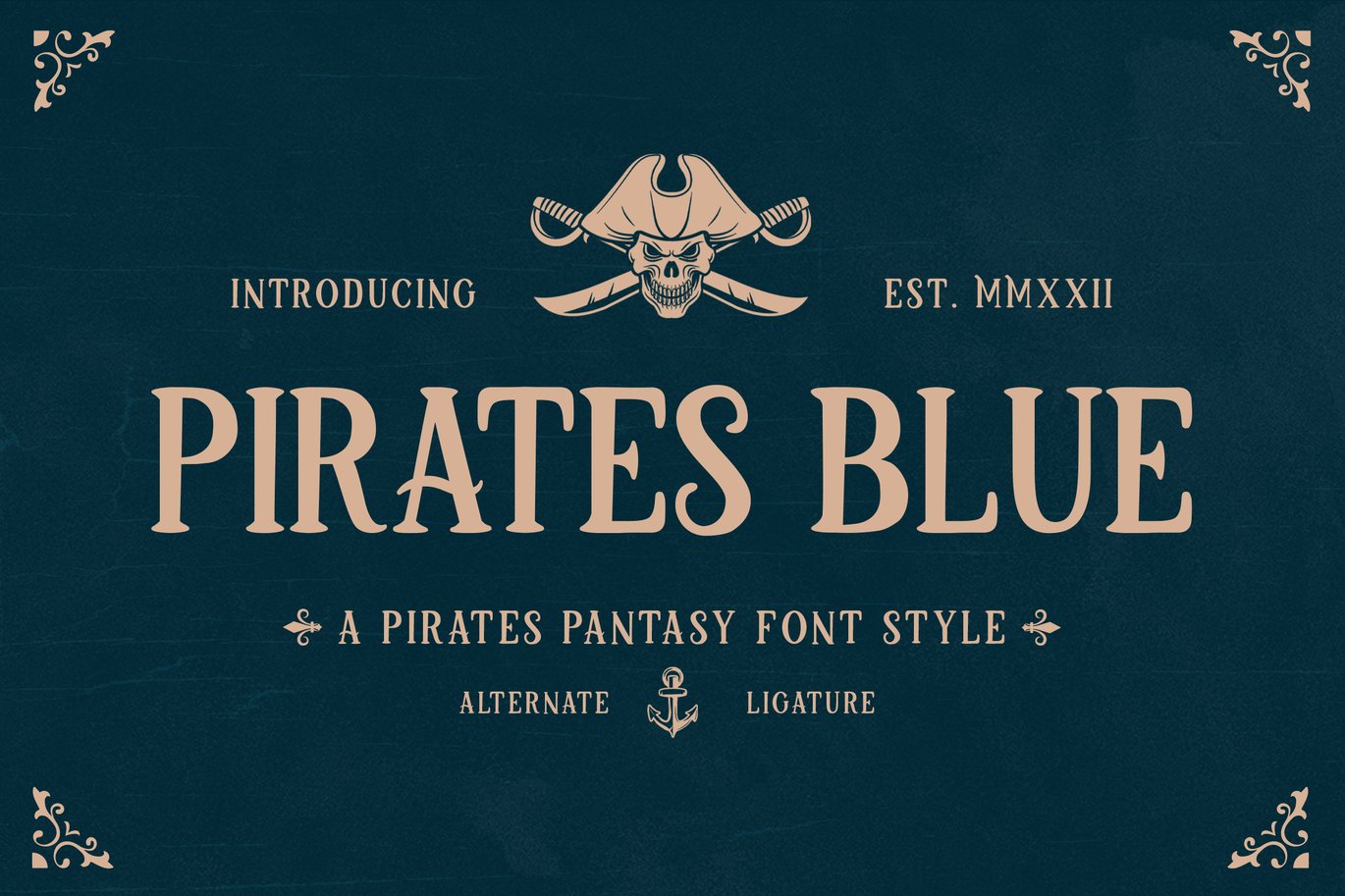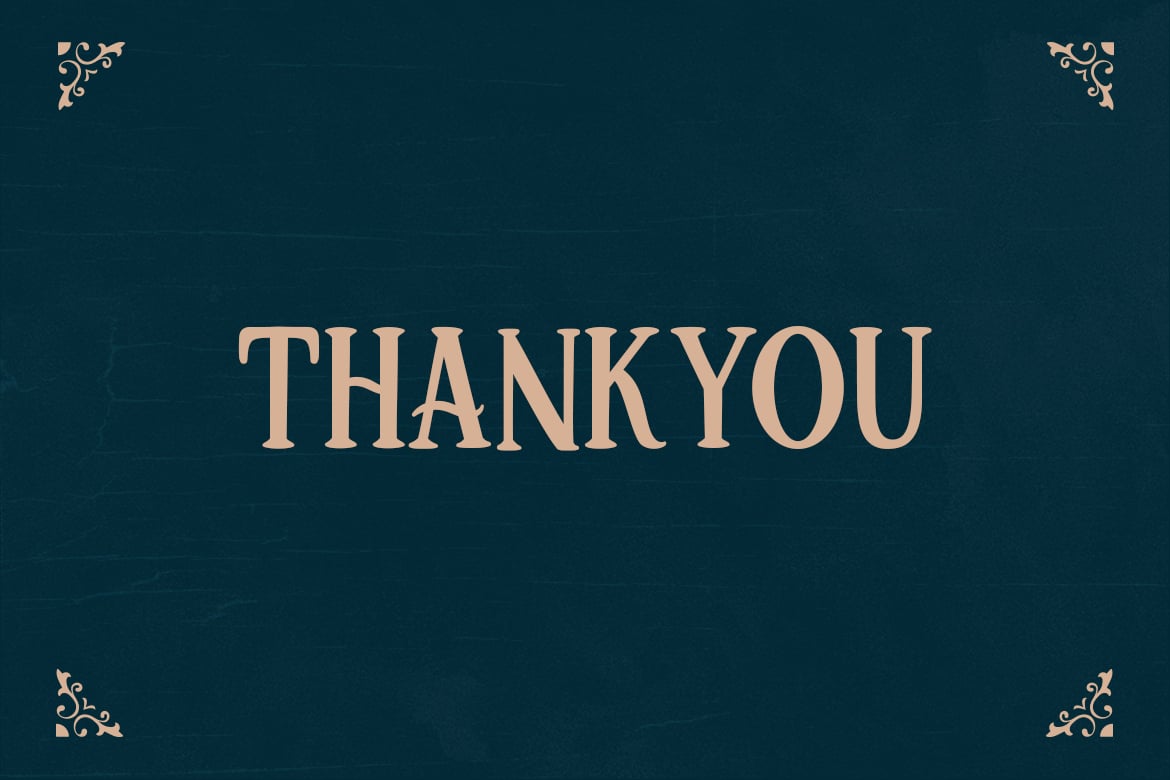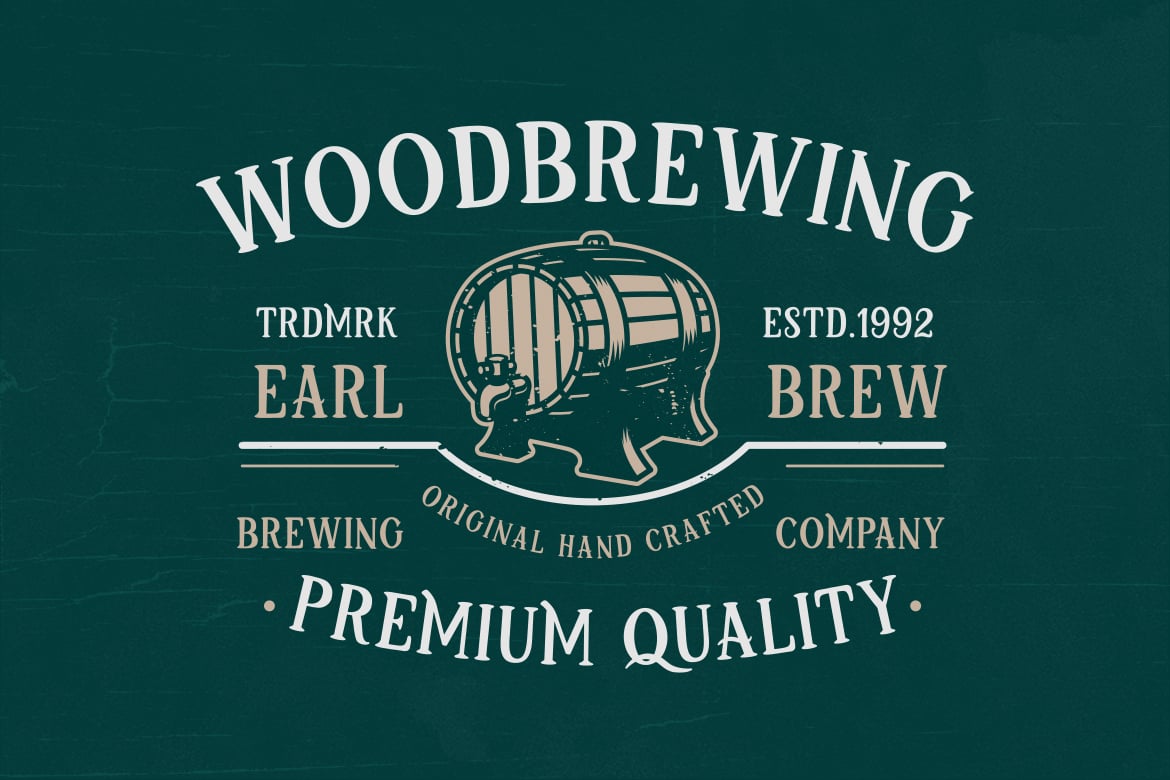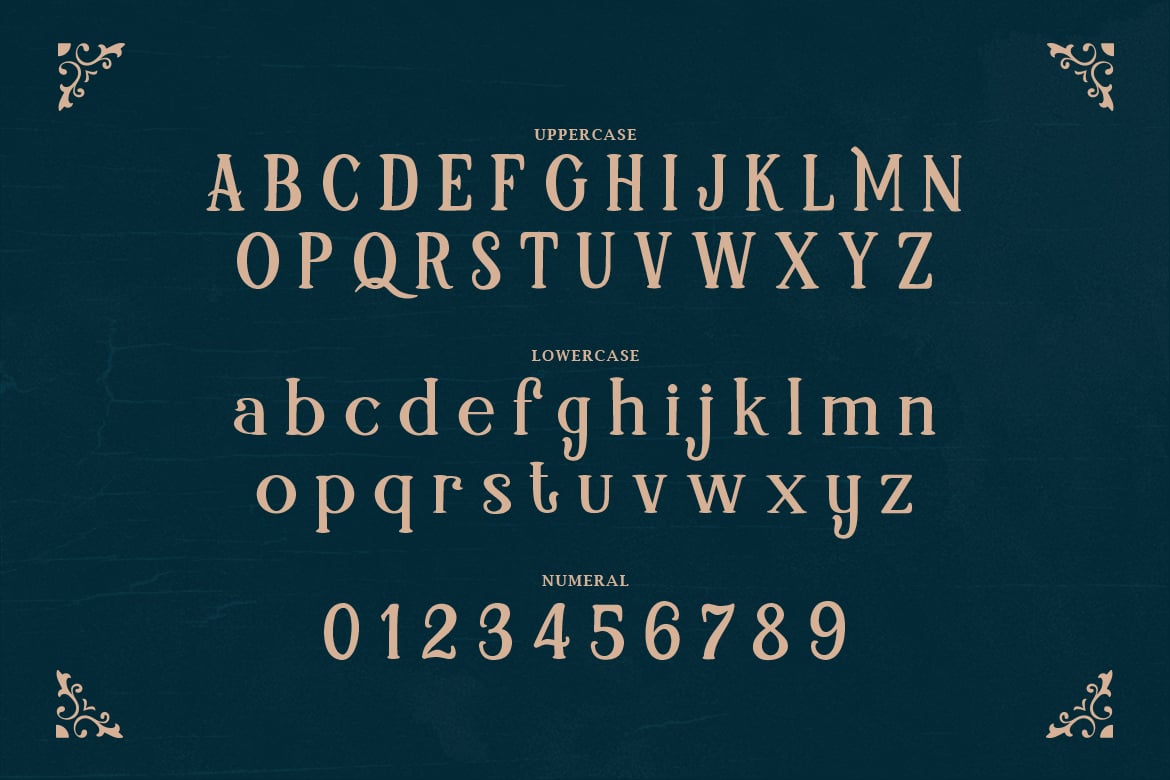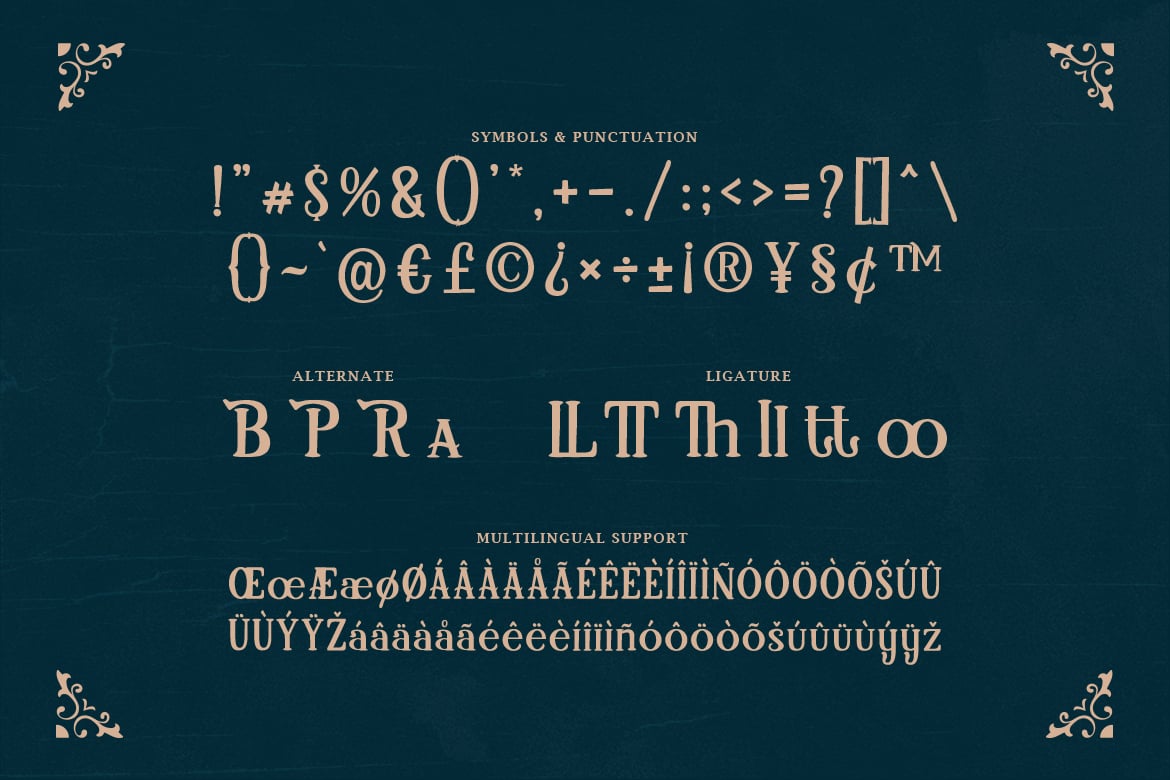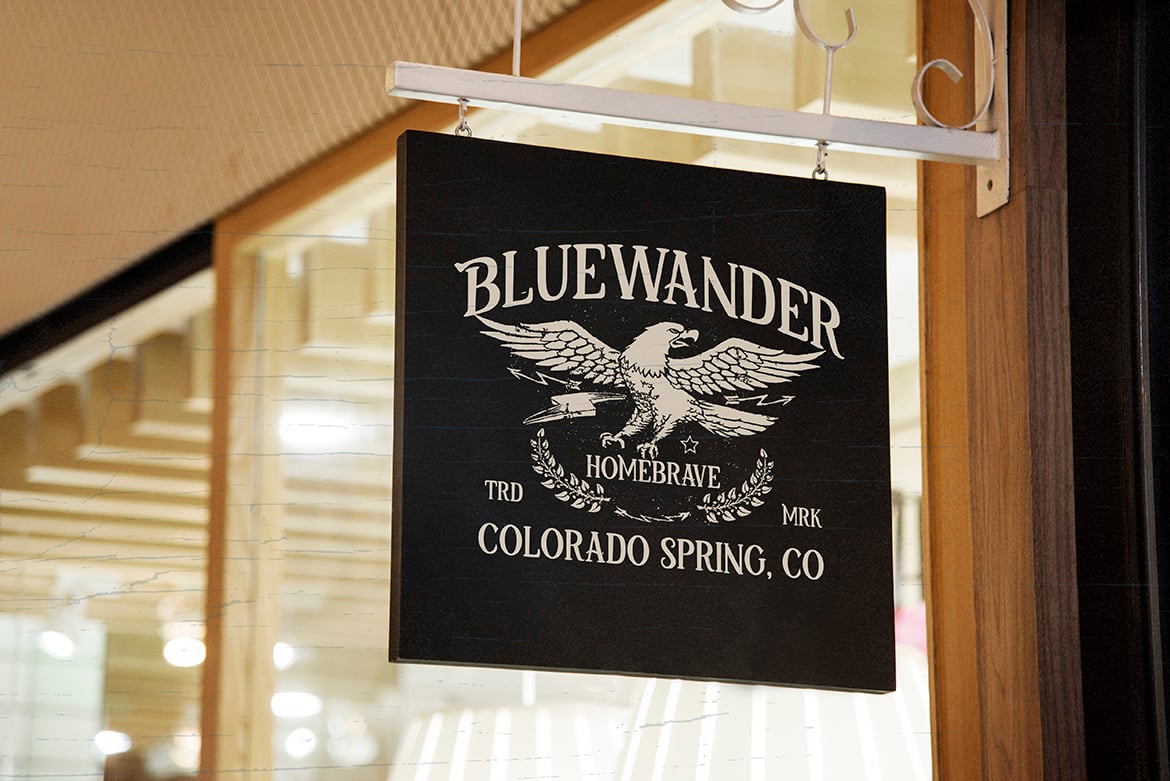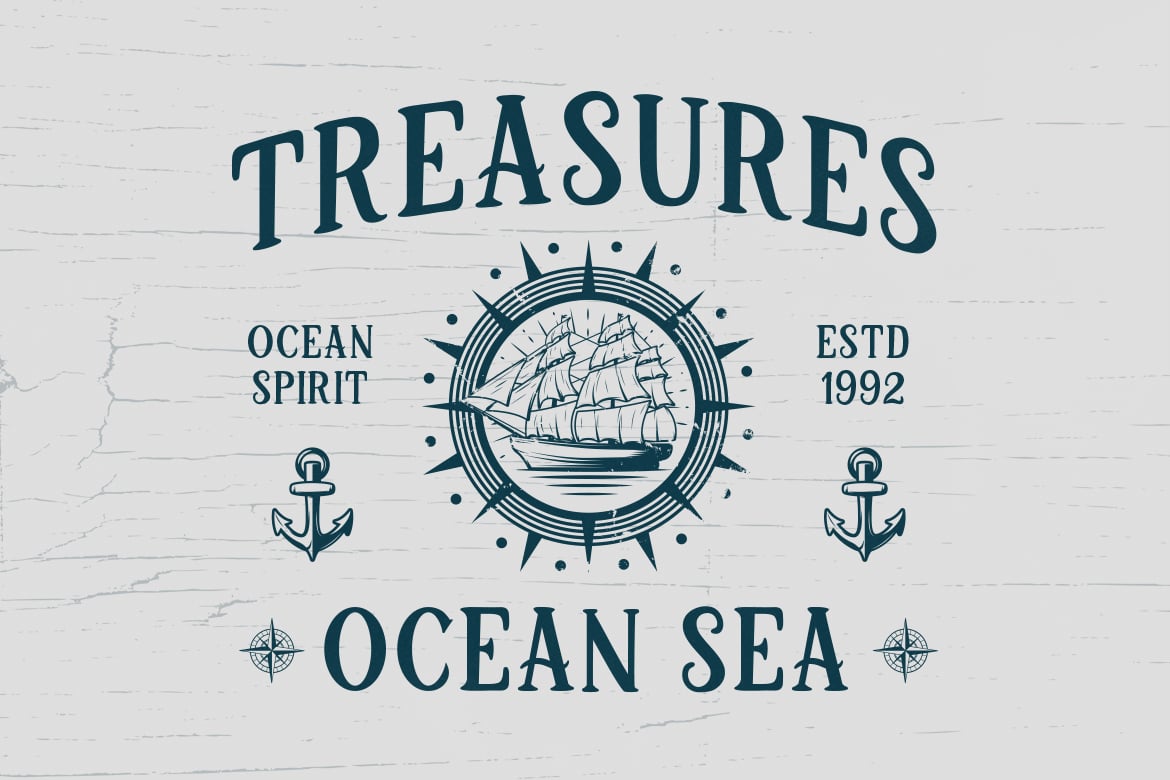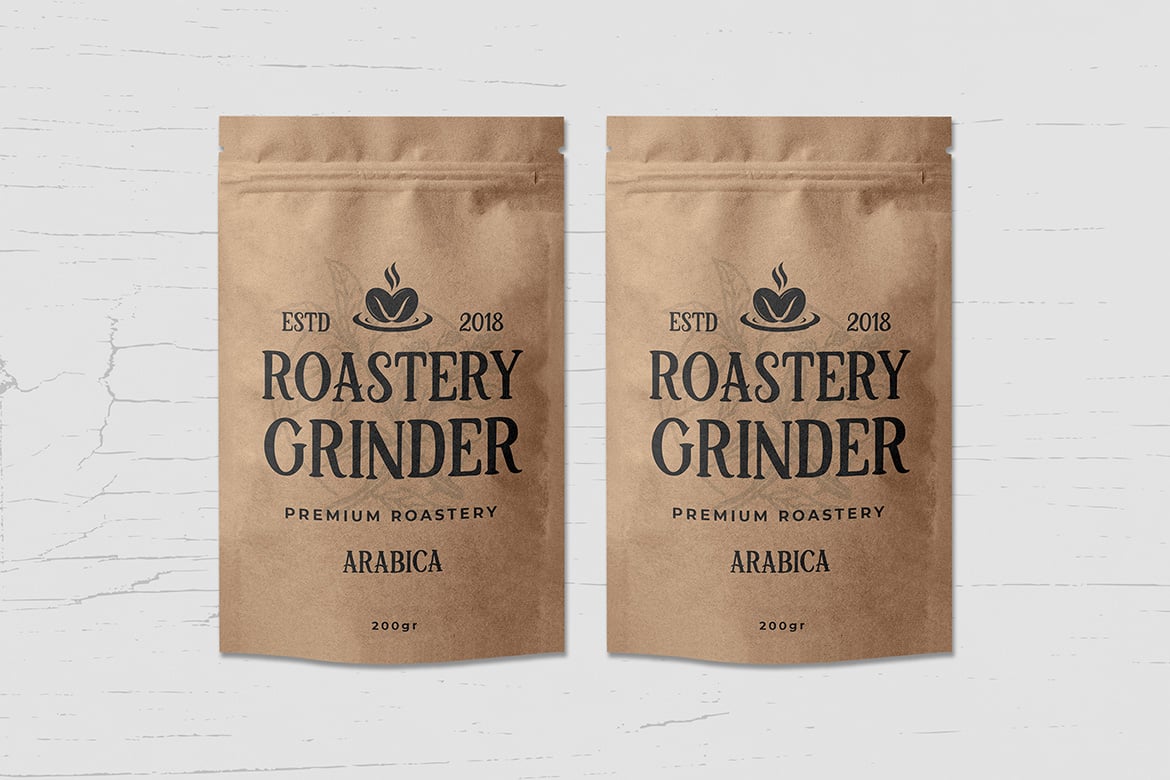
Pirates Blue – A Pirates Fantasy Font
Pirates Blue is a pirate fantasy font that will immediately take you into a adventure vibes.
This font will be the ideal choice for any movie, game, and pirate-themed design you wish to develop